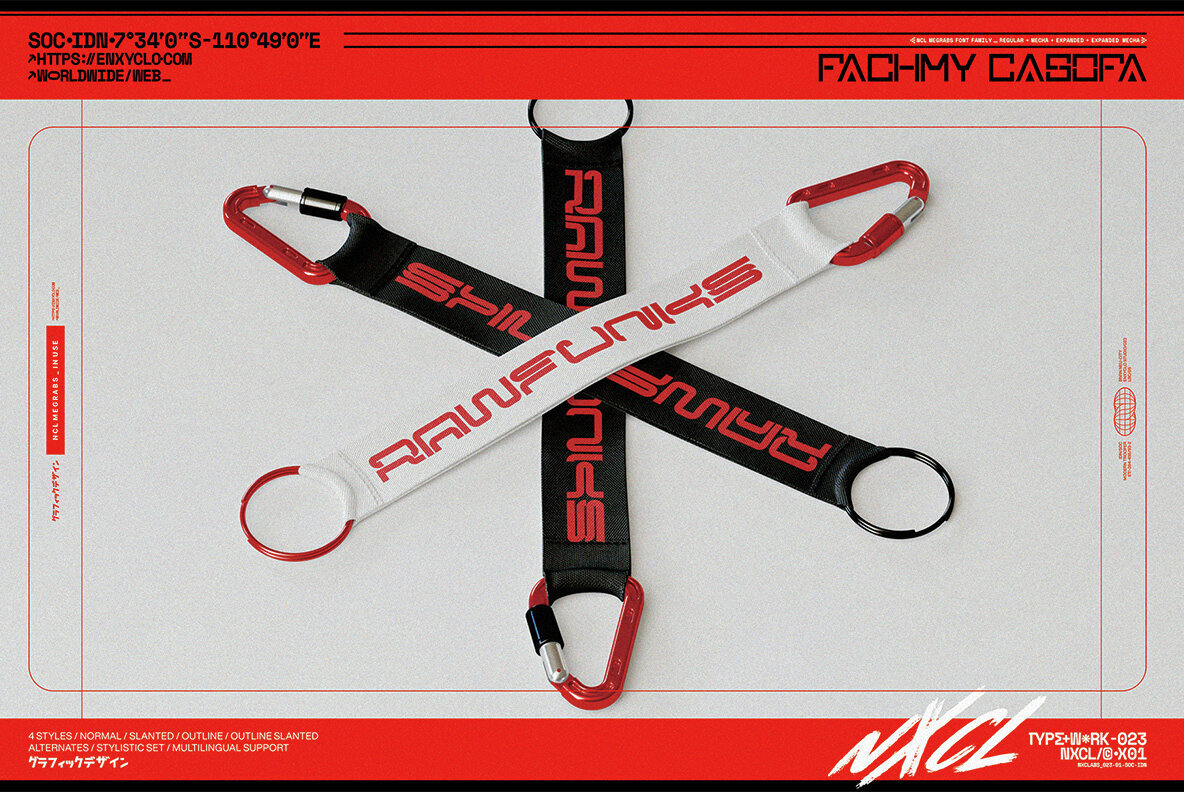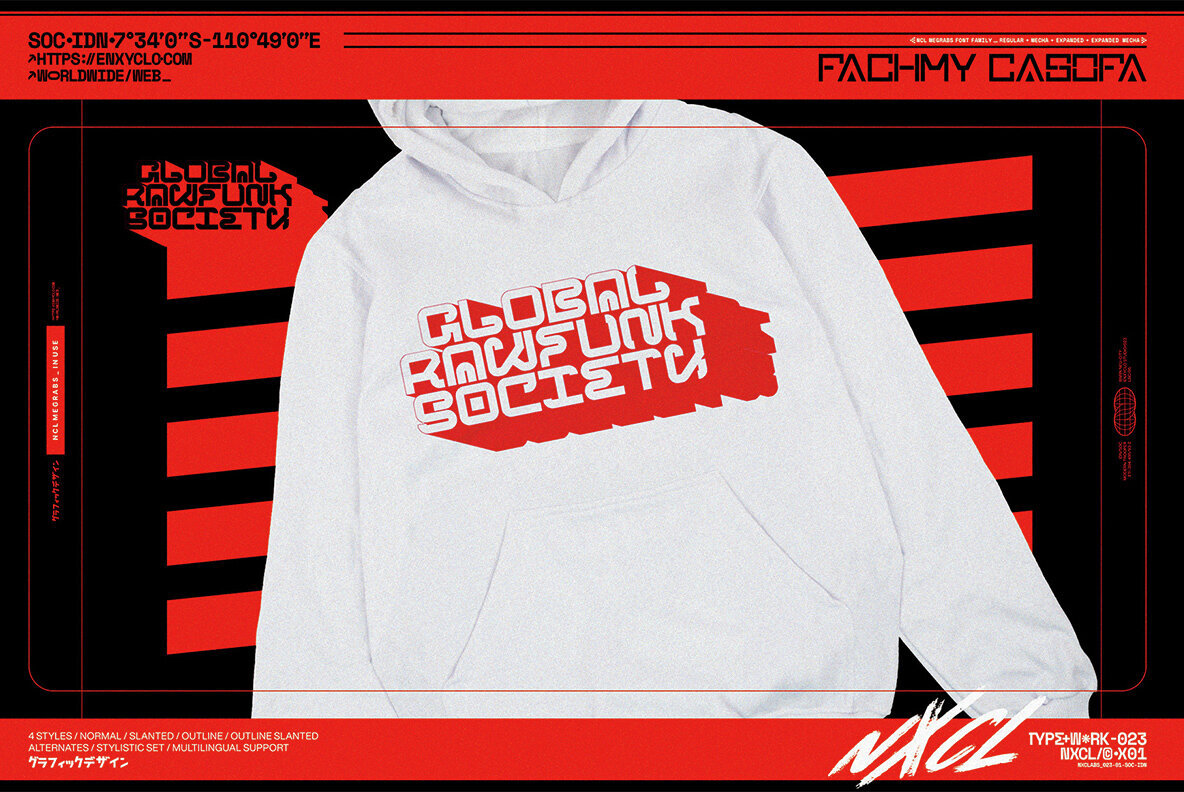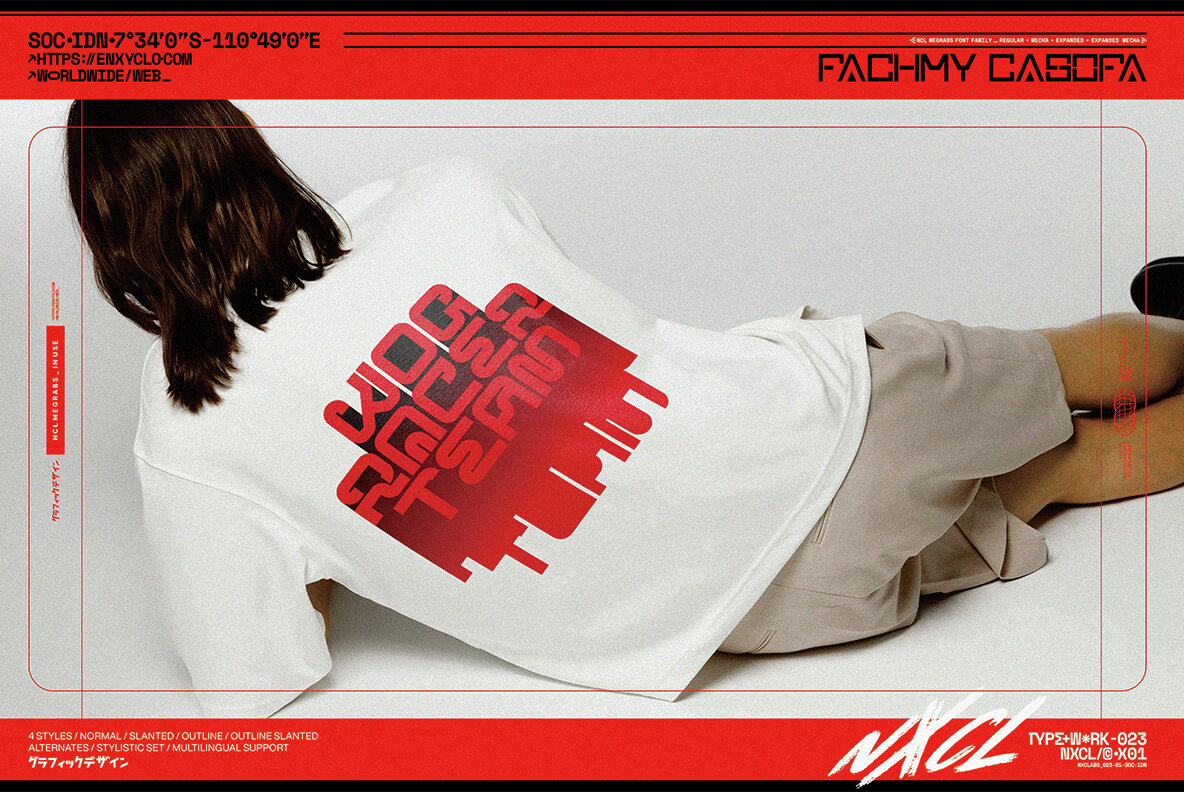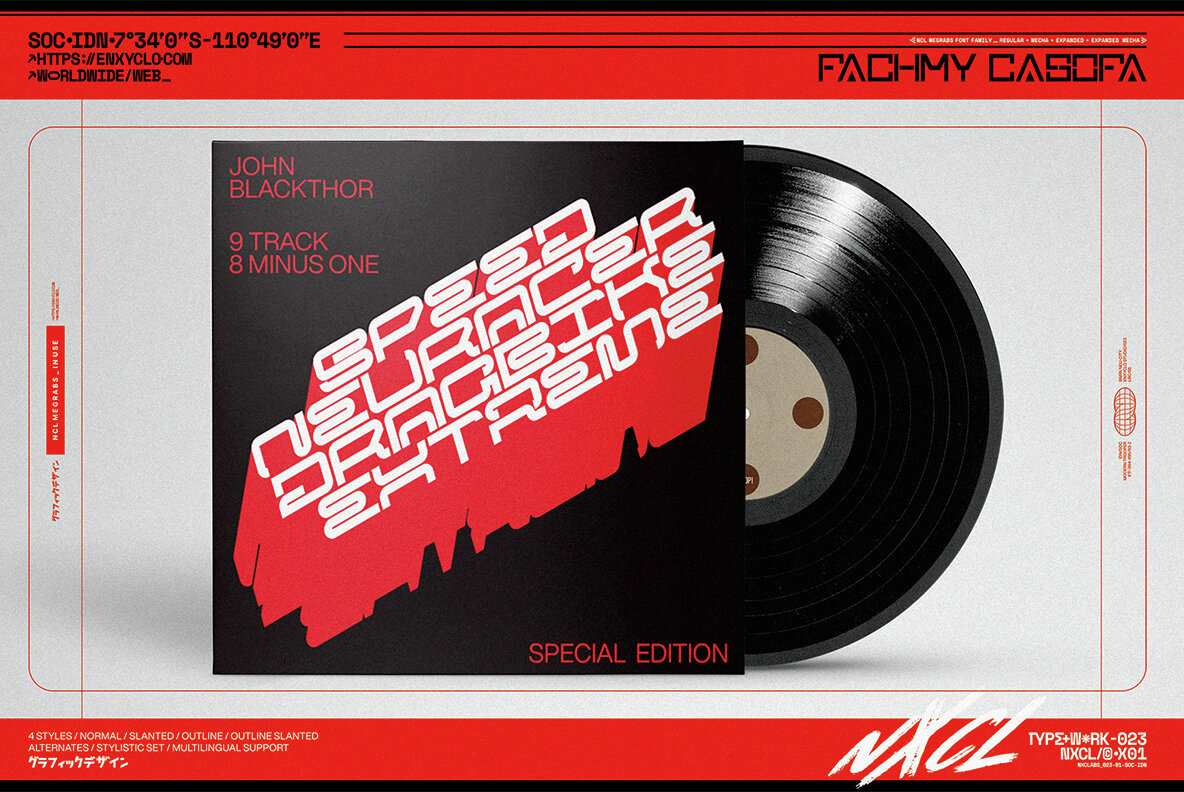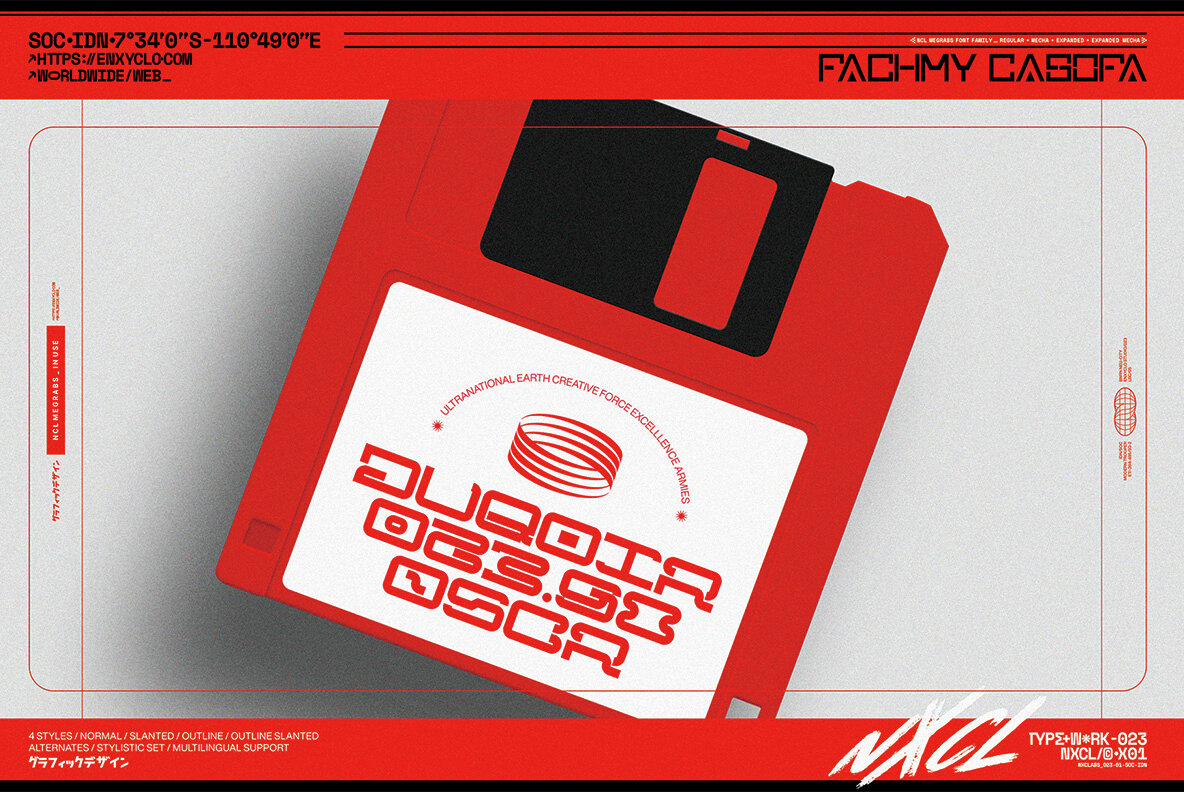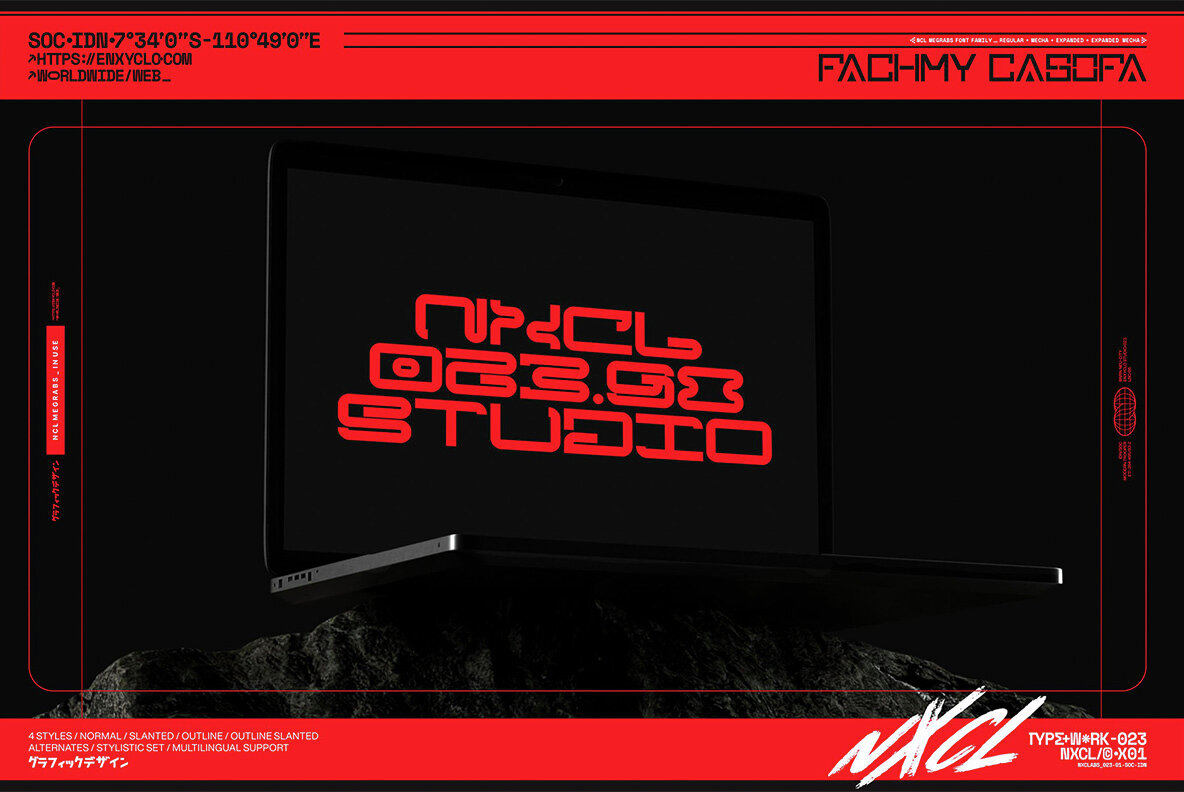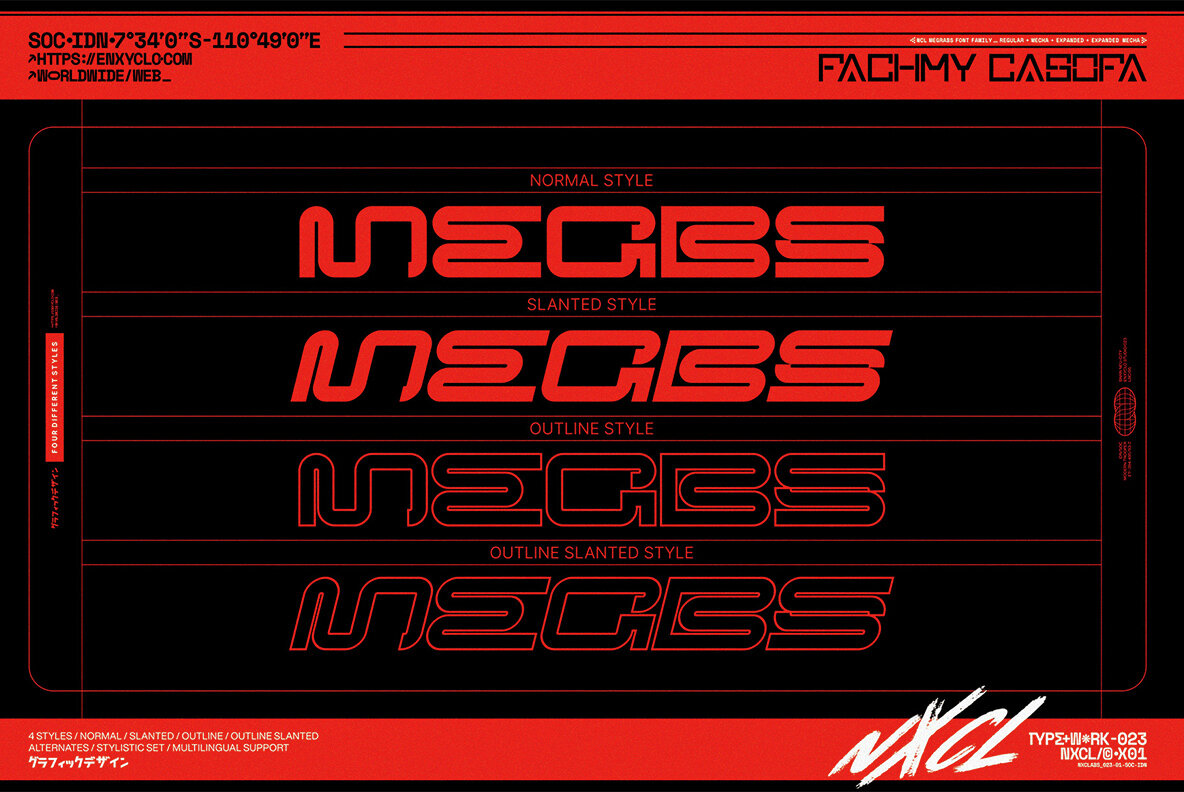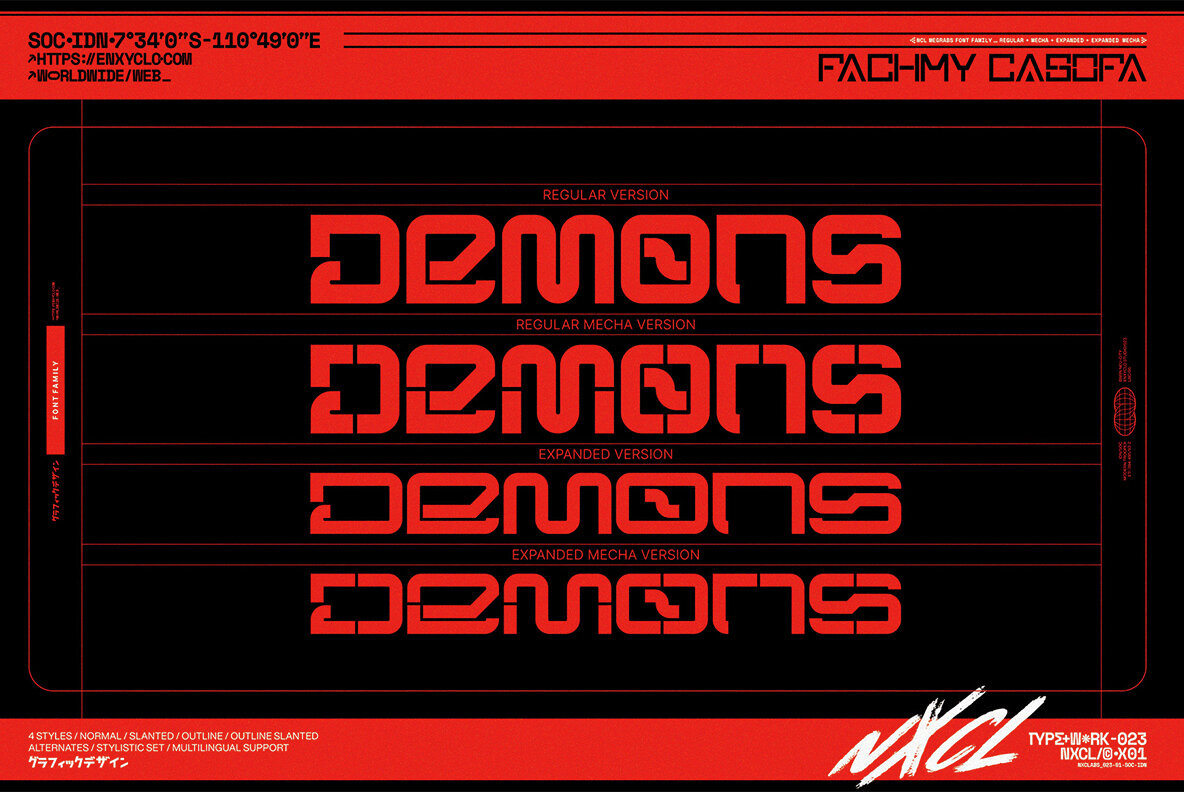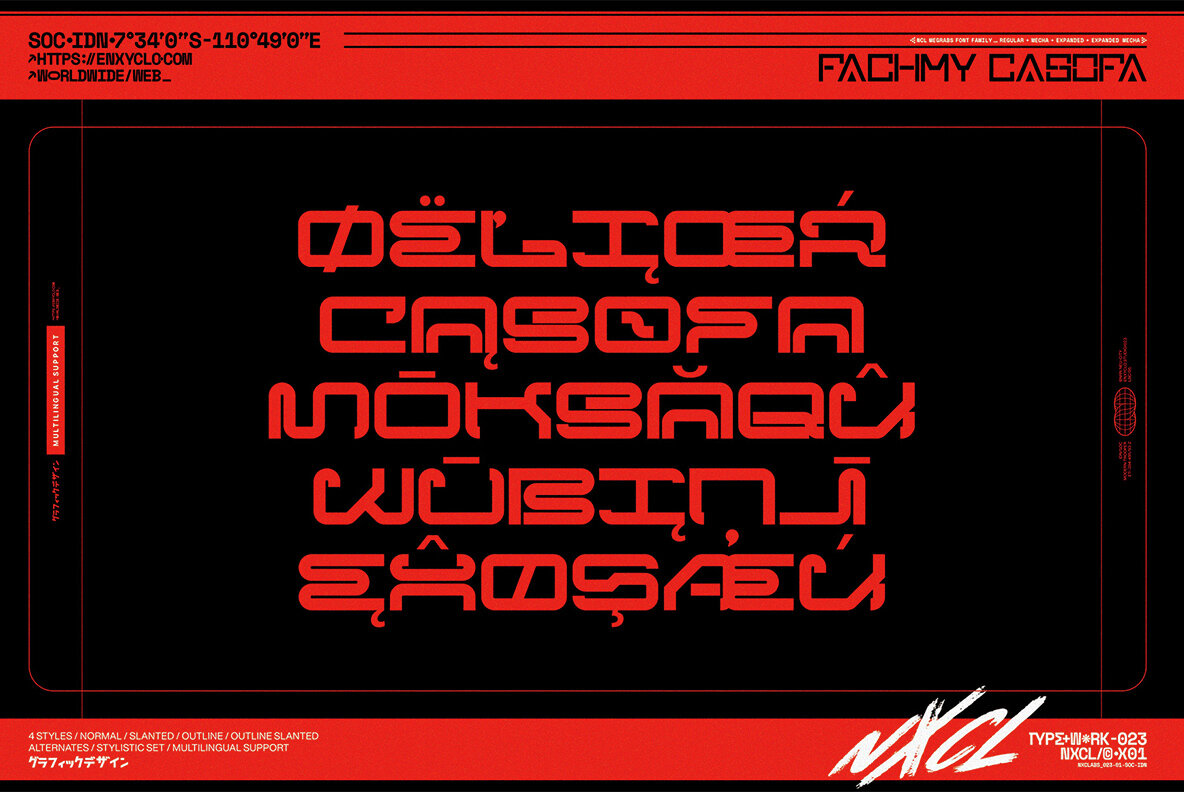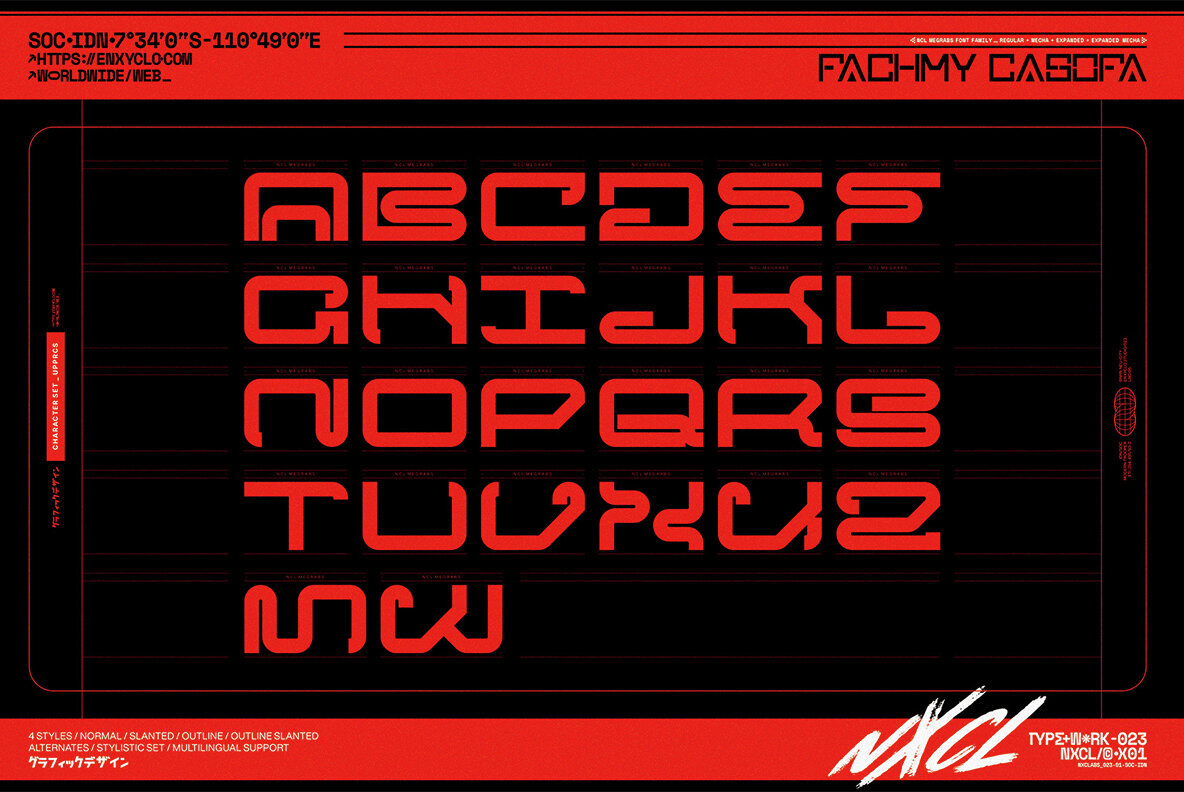
NCL Megrabs Font
The NCL Megrabs font family is a unique blend of industrial brutalism and futuristic modern techno design, perfect for pushing the boundaries of your creativity. Its cutting-edge aesthetics bring a new dimension to your projects, making them exceptionally distinctive. Ideal for a range of digital and print projects including websites, posters, and logos, this font offers an innovative touch and a sophisticated edge to any design.
Featuring a diverse selection of styles, NCL Megrabs includes Regular, Normal, Slanted, Outline, and an assortment of Mecha variations. Each style boasts 468 Glyphs, encompassing stylistic sets 1-3, uppercase and lowercase letters, numerals, punctuation, and symbols, all with multilingual support. With a total of 7488 glyphs across its numerous variations, this font family ensures versatility and comprehensive functionality, making it an invaluable asset for any designer.